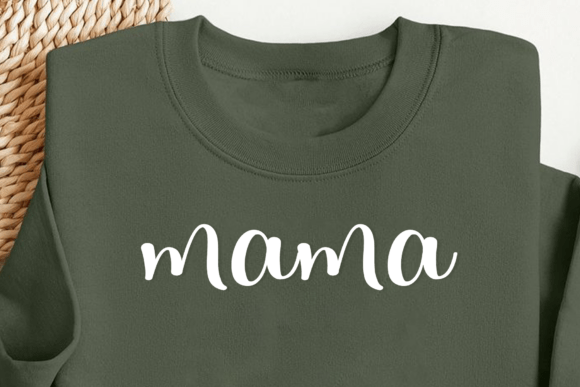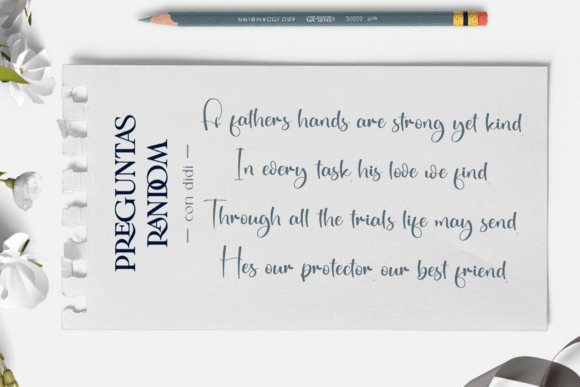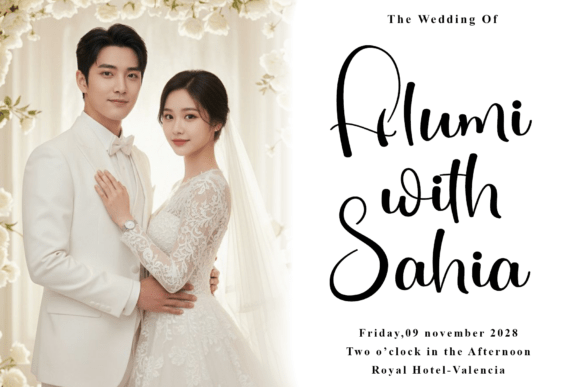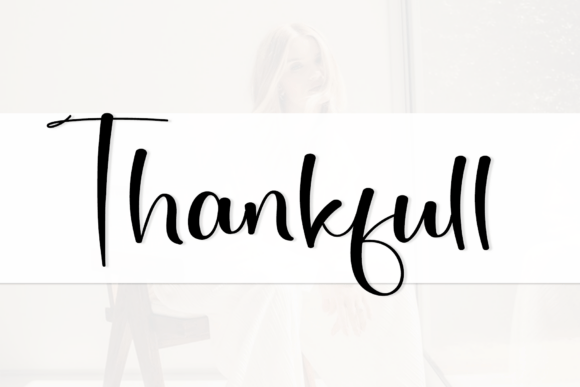
Discover the Charm of Brillian Font: Elevate Your Designs with Timeless Elegance
In the world of typography, fonts play a crucial role in conveying messages, expressing emotions, and creating lasting impressions. For designers, crafters, and anyone looking to add a personal touch to their projects, the right font can make all the difference. This is where Brillian Font comes into play – a lovely and timeless handwritten font that has been gaining attention for its unique charm and versatility.
The Beauty of Brillian Font
Brillian Font is a stunning example of handwritten typography, boasting a distinctive and elegant style that sets it apart from more conventional fonts. Its beauty lies in the unique touch each letter possesses, imbuing designs with a sense of personality and warmth. Whether you’re working on a logo, branding materials, or inspirational quotes, Brillian Font is the perfect choice for those seeking to add a touch of sophistication and whimsy to their creations.
Why Choose Brillian Font?
So, what makes Brillian Font stand out from the myriad of fonts available today? Here are a few compelling reasons why designers and crafters are falling in love with this beautiful font:
- Timeless Appeal: Unlike trendy fonts that may quickly become outdated, Brillian Font boasts a timeless quality that ensures your designs remain relevant and stylish for years to come.
- Eyecatching Logos and Branding: In a crowded marketplace, it’s essential to create a visual identity that captures attention and resonates with your audience. Brillian Font’s unique charm makes it an excellent choice for crafting memorable logos and branding materials.
- Versatility: Whether you’re designing for digital platforms, print materials, or handmade crafts, Brillian Font adapts seamlessly to various mediums, ensuring your designs look great everywhere.
- Emotional Connection: Handwritten fonts like Brillian have the power to evoke emotions and create a personal connection with the viewer. This makes them particularly effective for quotes, invitations, and other projects where you want to convey a sense of warmth and sincerity.
Using Brillian Font in Your Designs
Incorporating Brillian Font into your projects is easier than you might think. Here are some tips to get you started:
- Pair it with Complementary Fonts: For maximum impact, consider pairing Brillian Font with simpler fonts that complement its elegance. This will help create visual balance and ensure your message is conveyed clearly.
- Experiment with Colors: The beauty of Brillian Font can be further enhanced by experimenting with different colors. Whether you prefer classic black and white or vibrant hues, this font looks great in various color schemes.
- Pay Attention to Spacing: To maintain readability and ensure your design looks polished, pay attention to letter spacing and line height. Brillian Font’s unique style shines best when given enough room to breathe.
Brillian Font is more than just a beautiful handwritten font – it’s a tool for designers and crafters to create stunning, eye-catching designs that leave a lasting impression. Its timeless elegance, versatility, and emotional resonance make it an excellent choice for a wide range of projects. Whether you’re looking to elevate your branding, craft memorable quotes, or simply add a personal touch to your creations, Brillian Font is sure to inspire and delight.